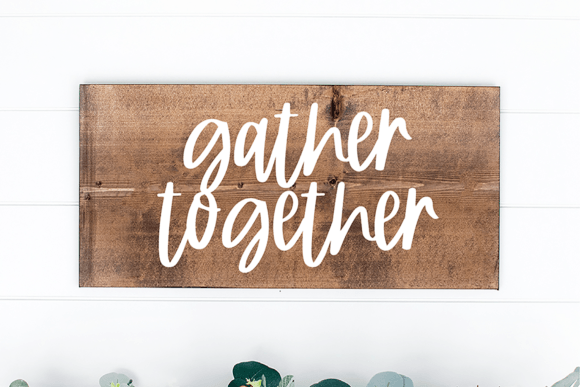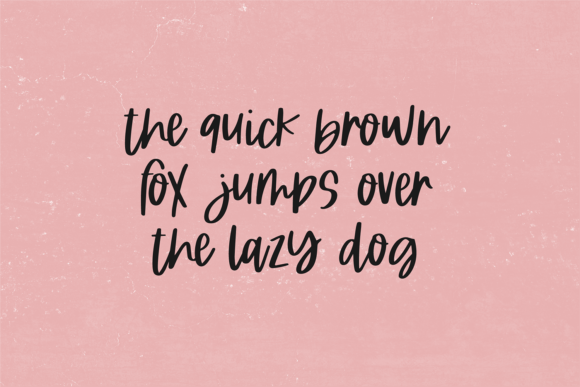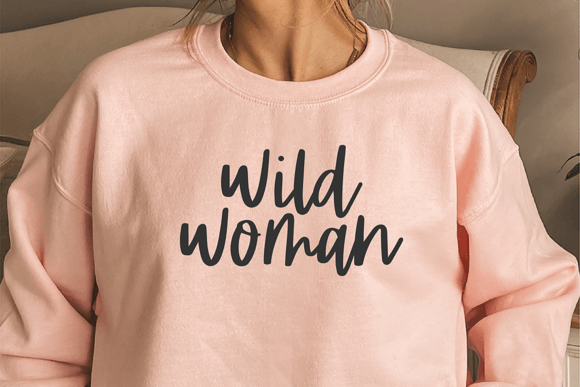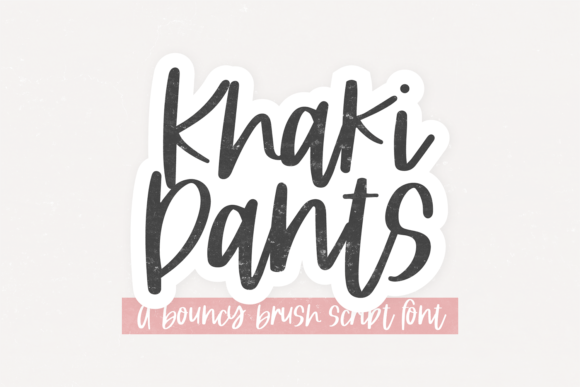
Introduction to Khaki Pants Font
Khaki Pants is an exquisite brush font that combines trendiness with a touch of elegance.
Its unique brush strokes create a natural, authentic look that is both playful and sophisticated Perfect for designs that demand a mix of modernity and refined style, this font is sure to make your project stand out.